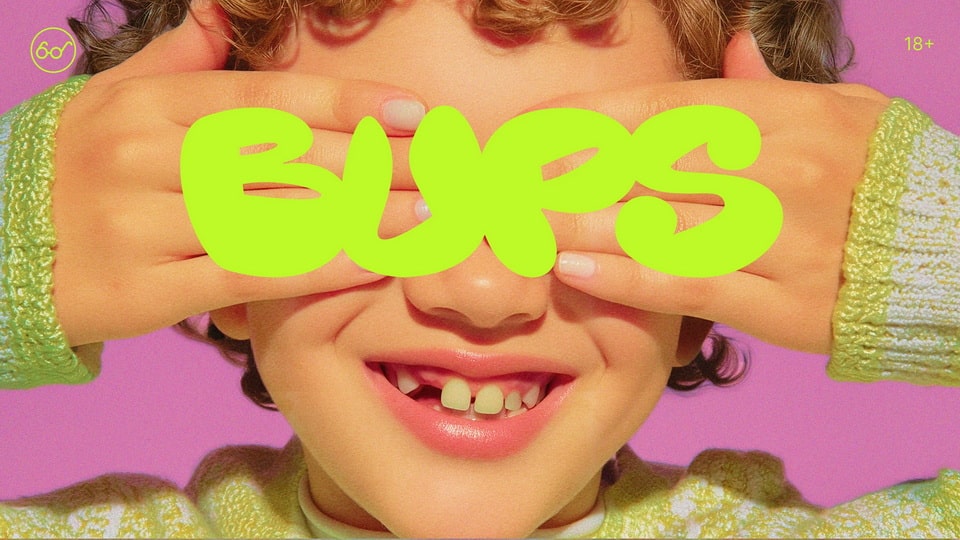
Download BUPS font, a naive troublemaker. A high-contrast display typeface born at the collision of childhood and boldness. It breathes emotion, lives in all-caps headlines, and isn’t afraid to look silly in order to sound honest.